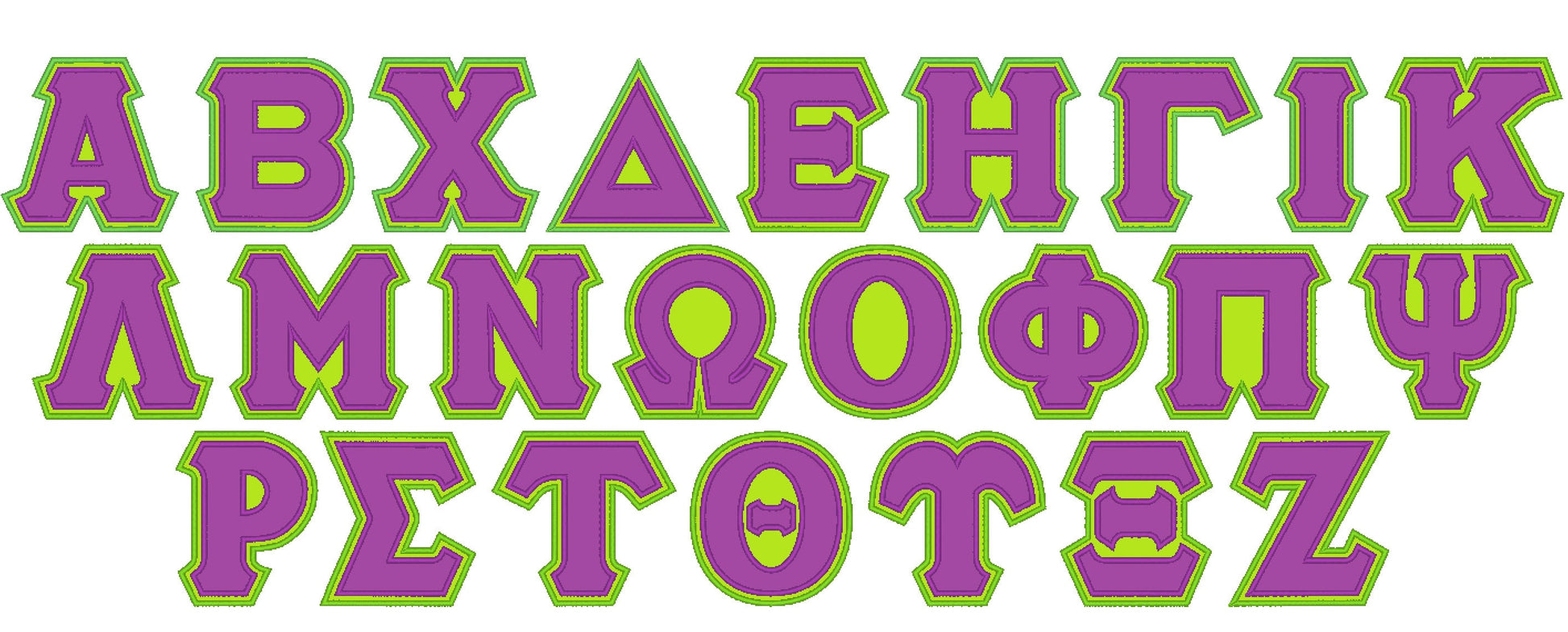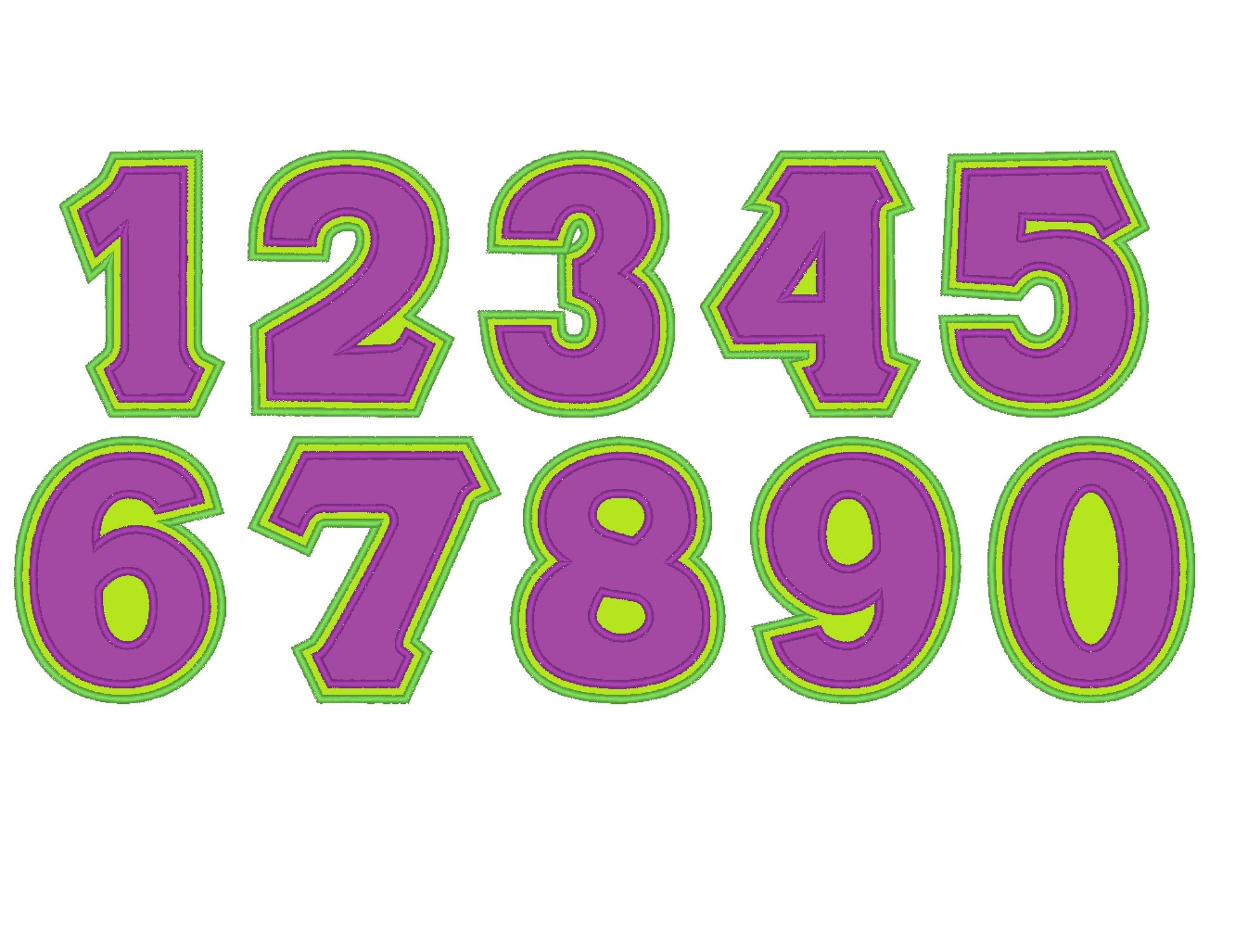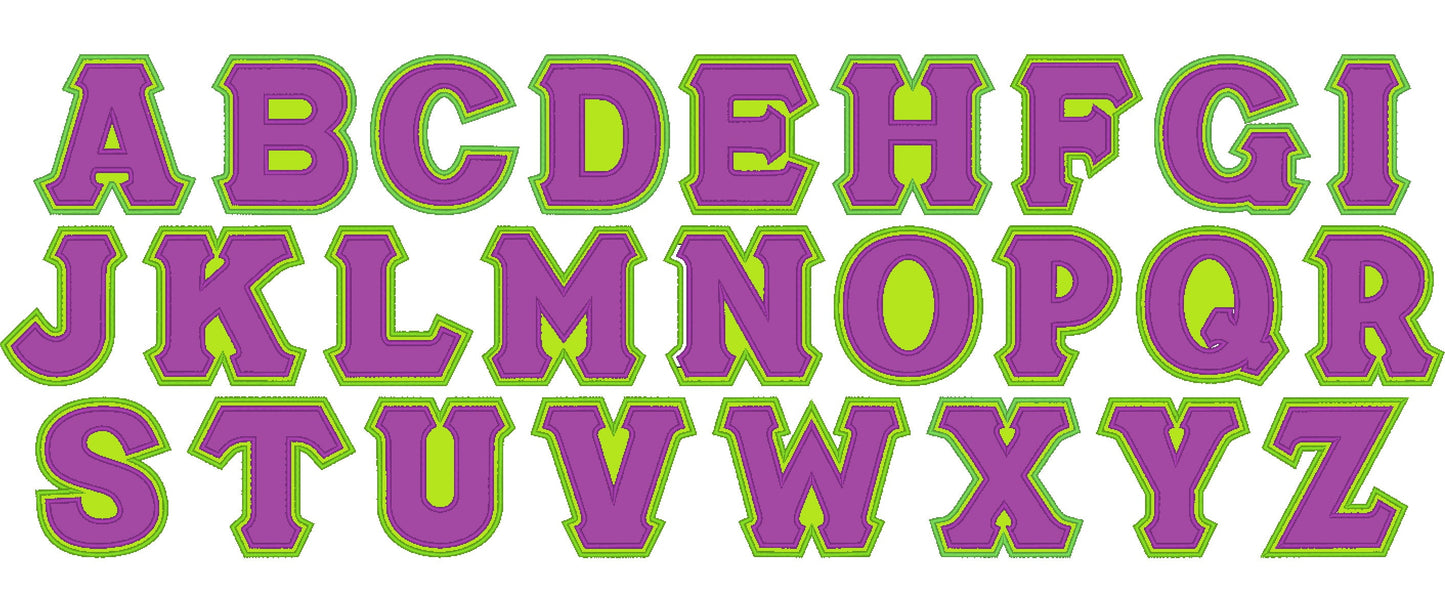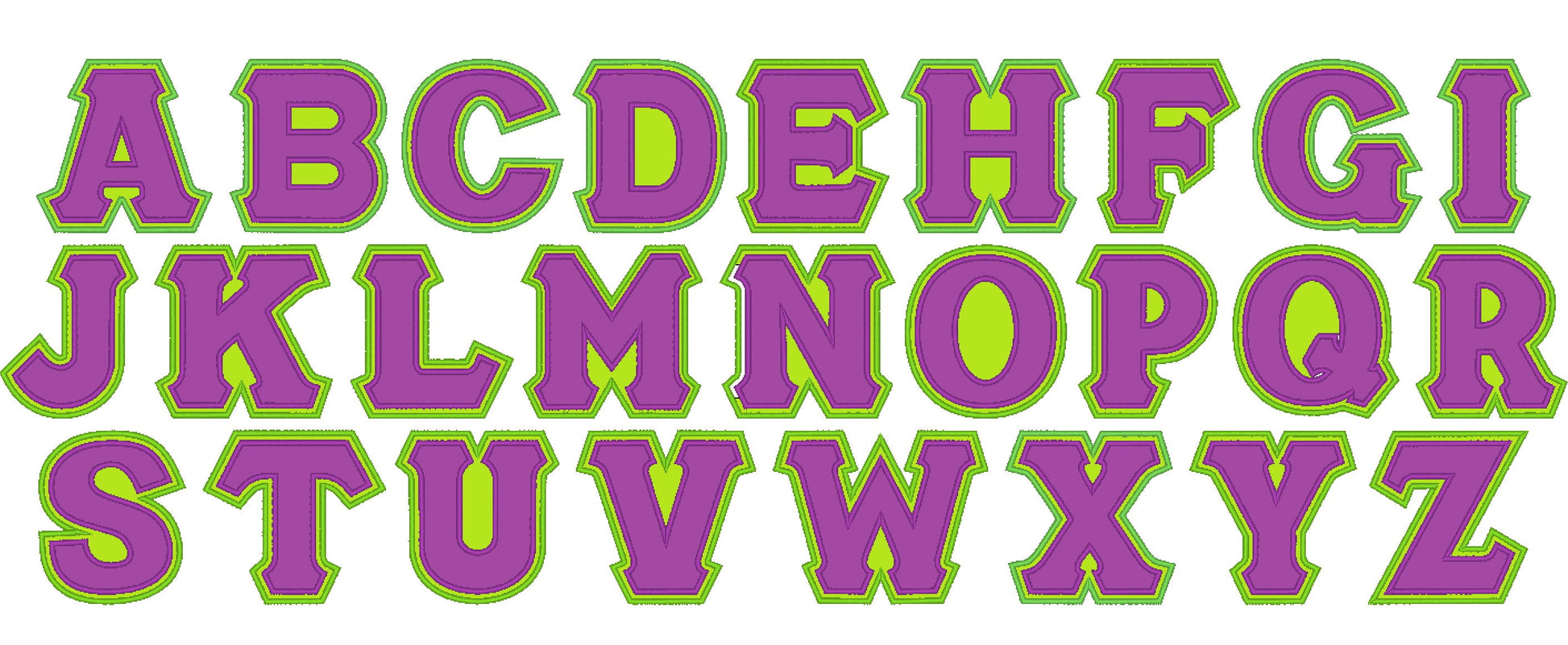
English and Sororities Greek Font Set of 2
Uppercase letters A to Z, numbers 0 to 9 and all 24 Greek letters, in six sizes: 3, 4, 4.5, 5, 6 and 7 inches. Two layers of applique with a classic satin stitch edge.
- Two-layer applique font set
- English A-Z, numbers 0-9, 24 Greek letters
- 6 sizes, 3 to 7 in